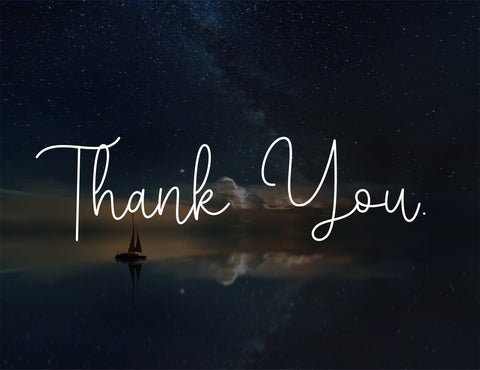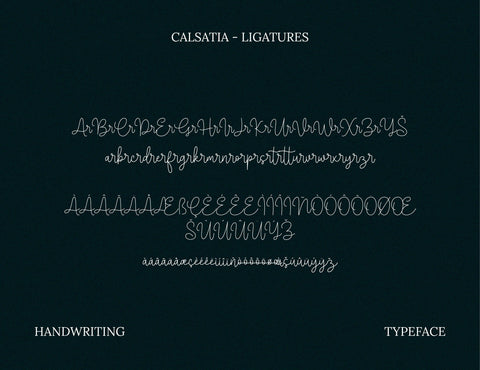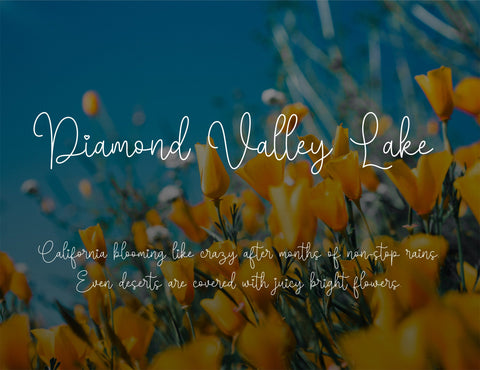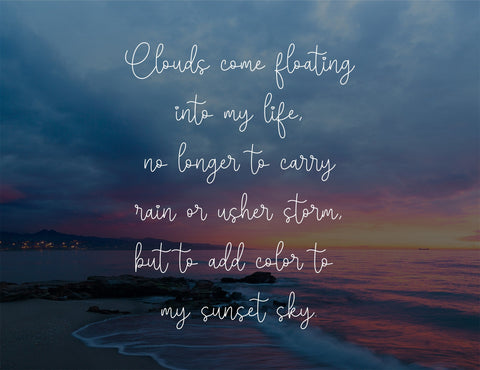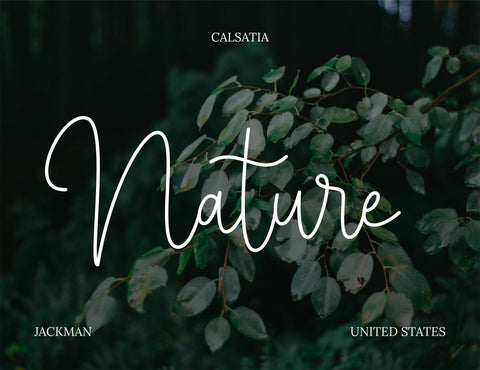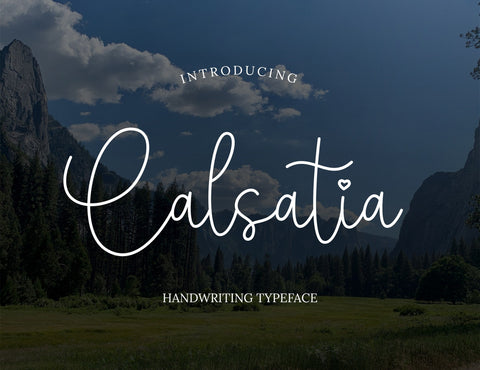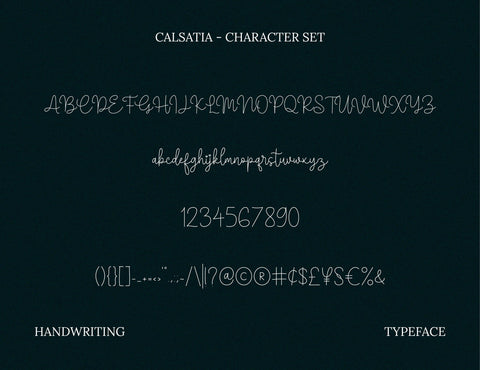
Calsatia Modern Handwritten Font
Calsatia is a flowing handwritten font, described by an elegant touch, perfect for your favorite projects. It looks stunning on wedding invitations, thank you cards, quotes, greeting cards, logos, business cards and every other design which needs a handwritten touch. Fall in love with its incredibly distinct and timeless style and use it to create spectacular designs!